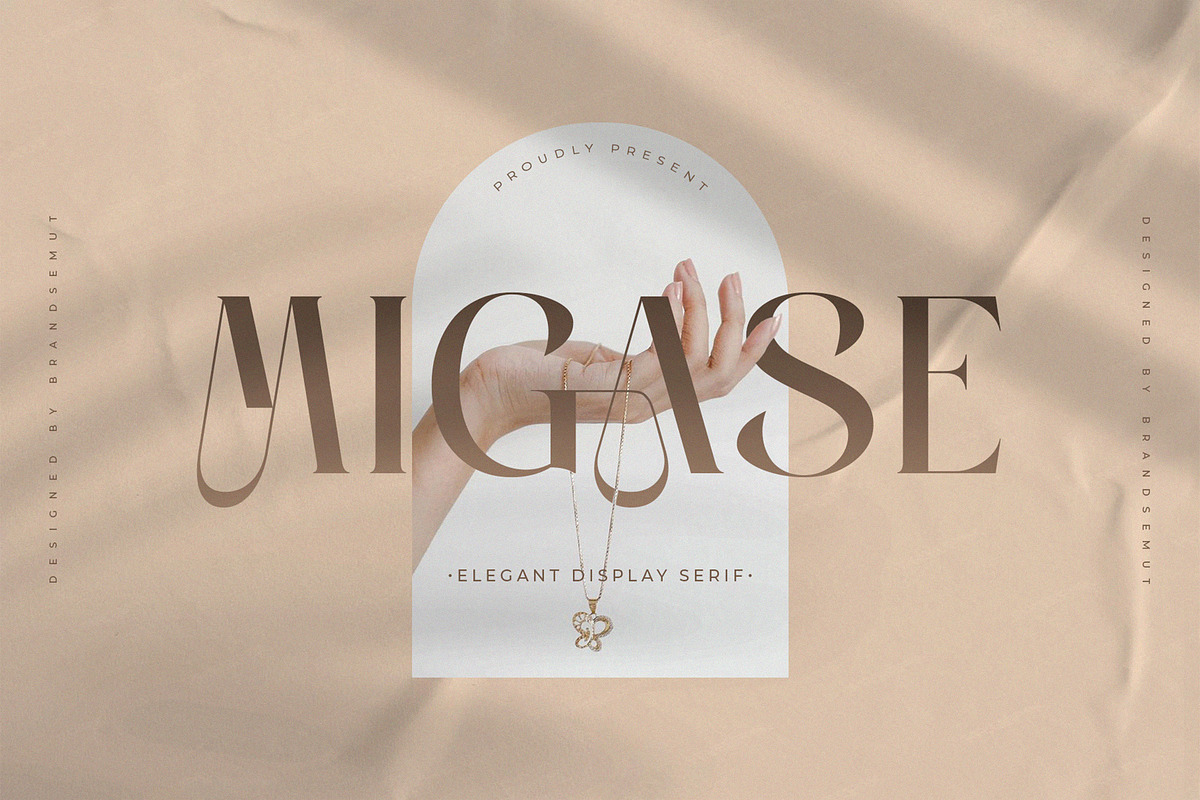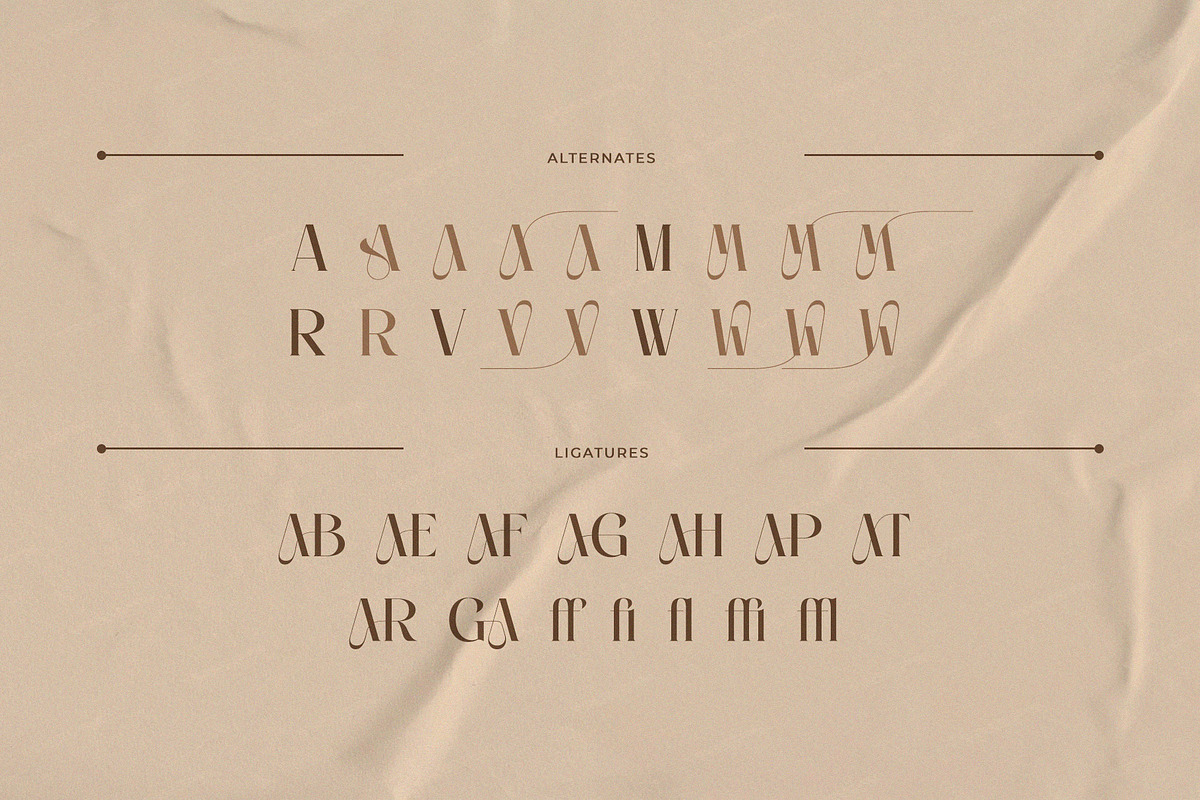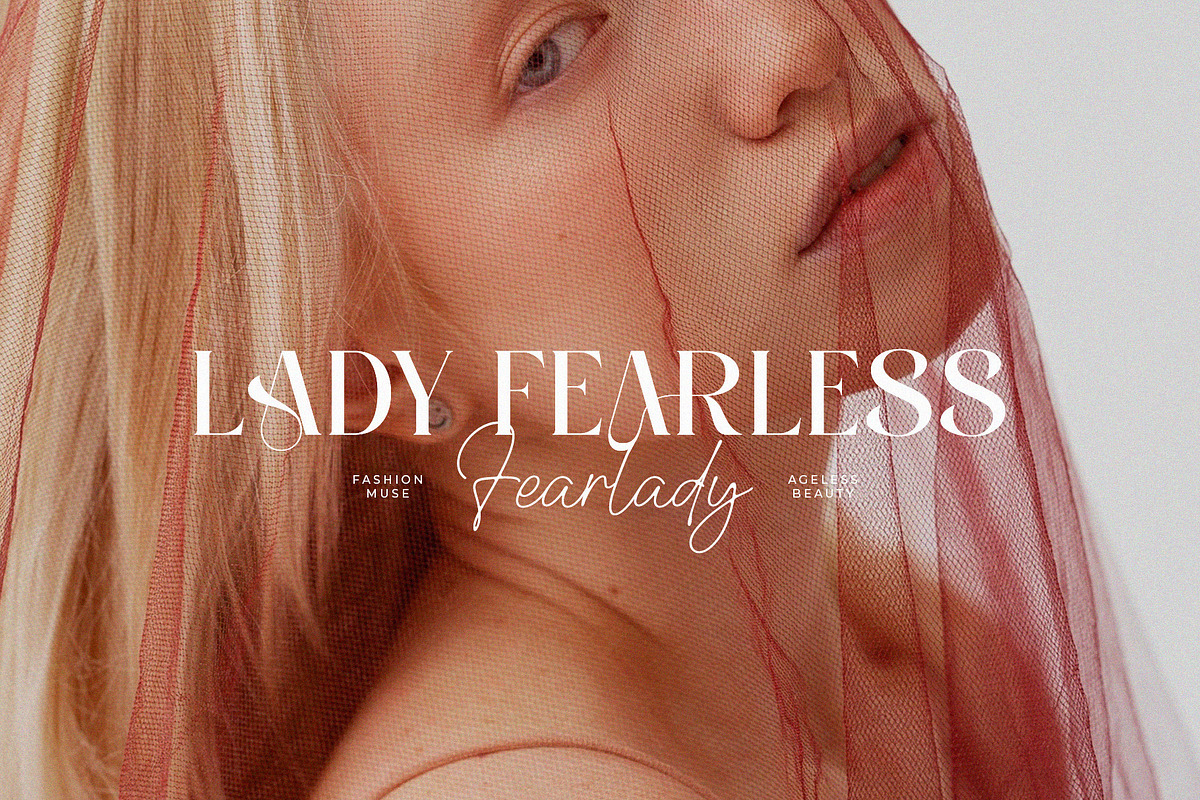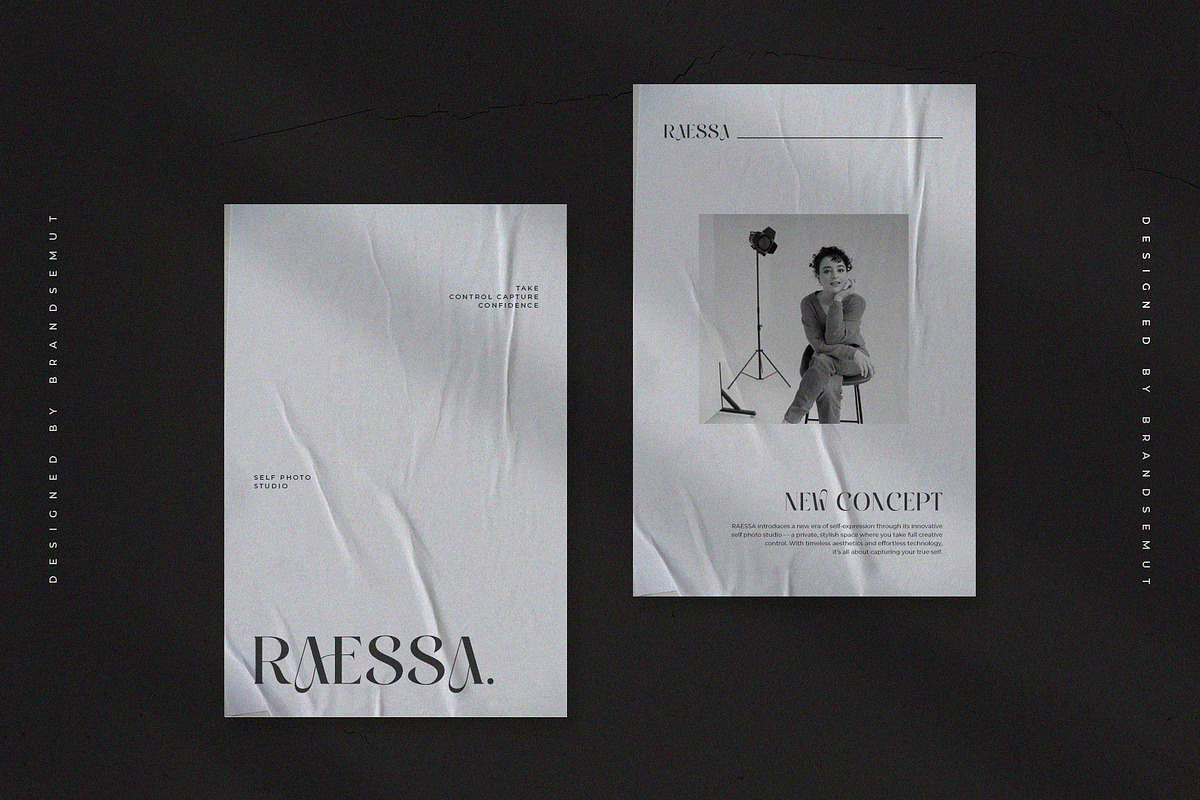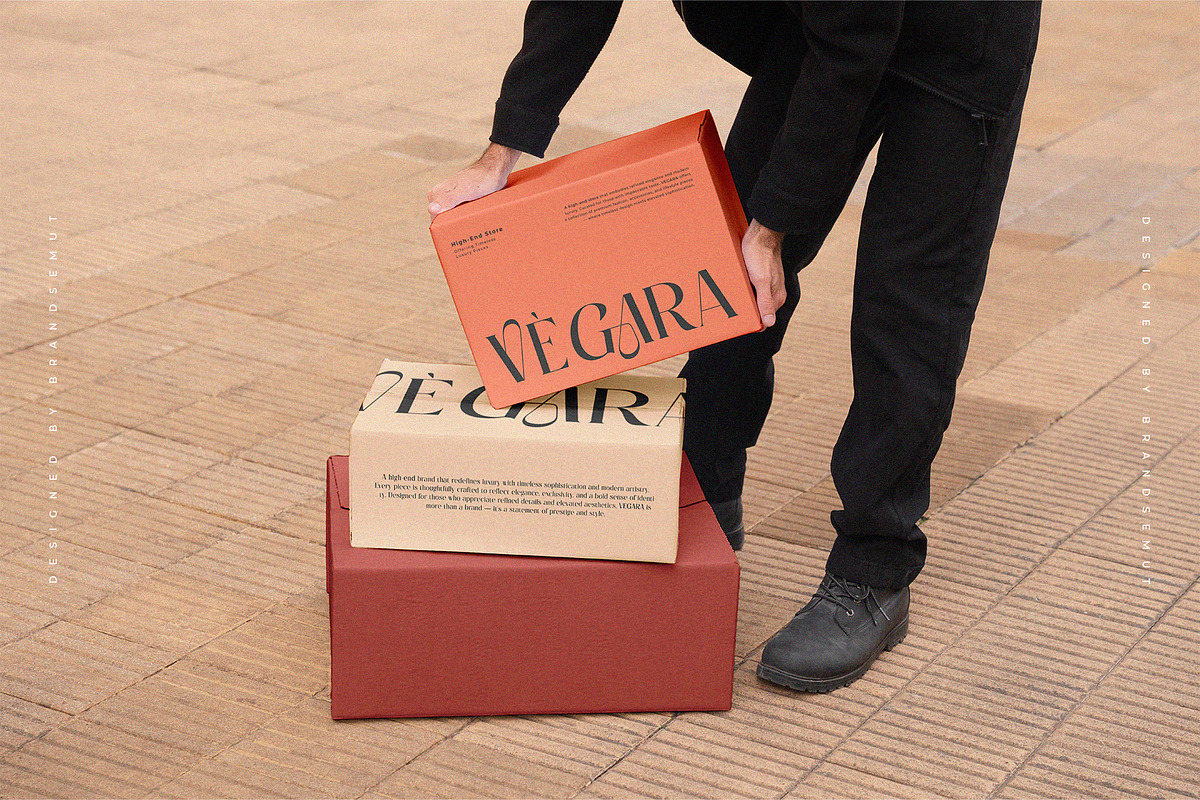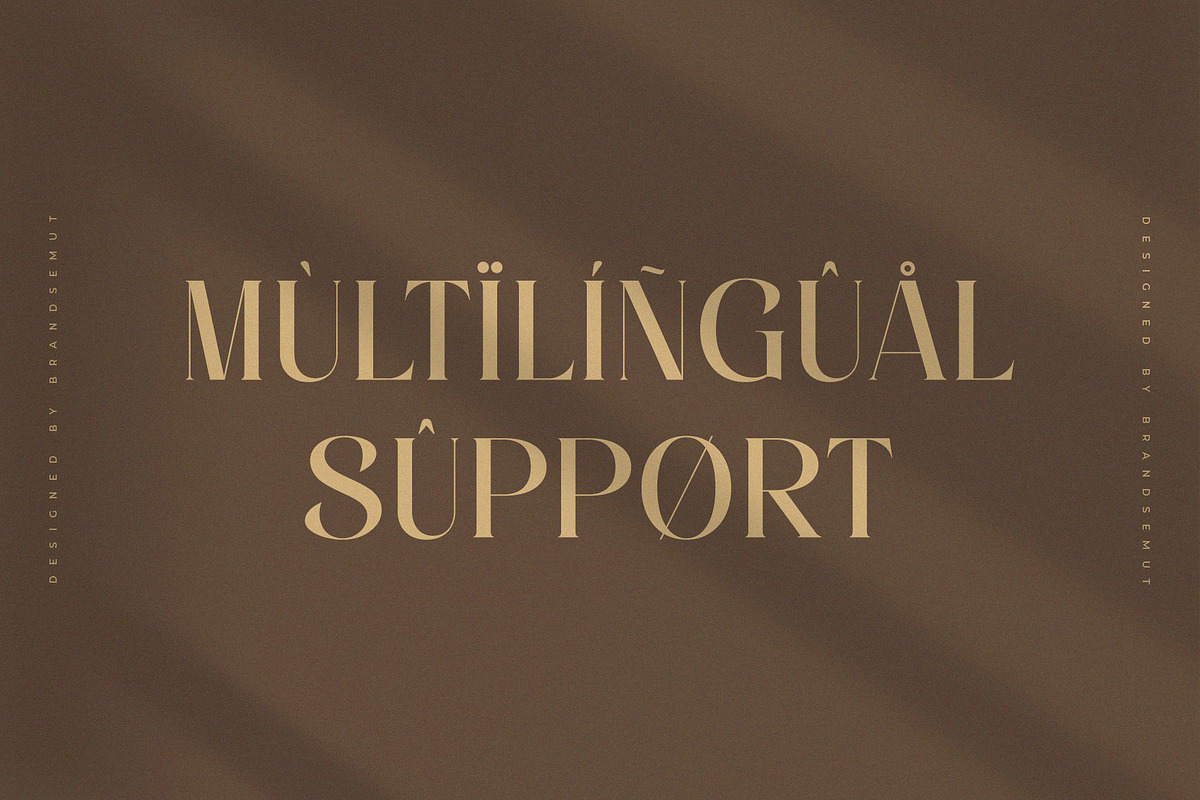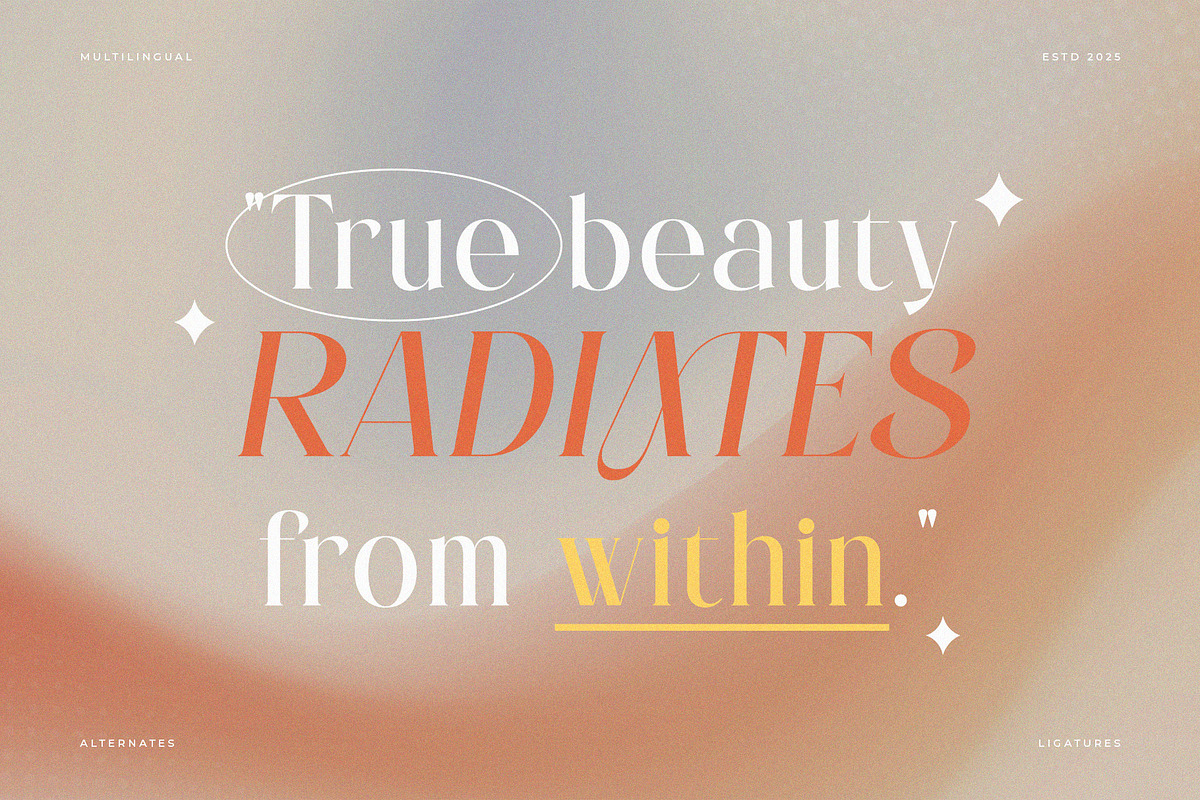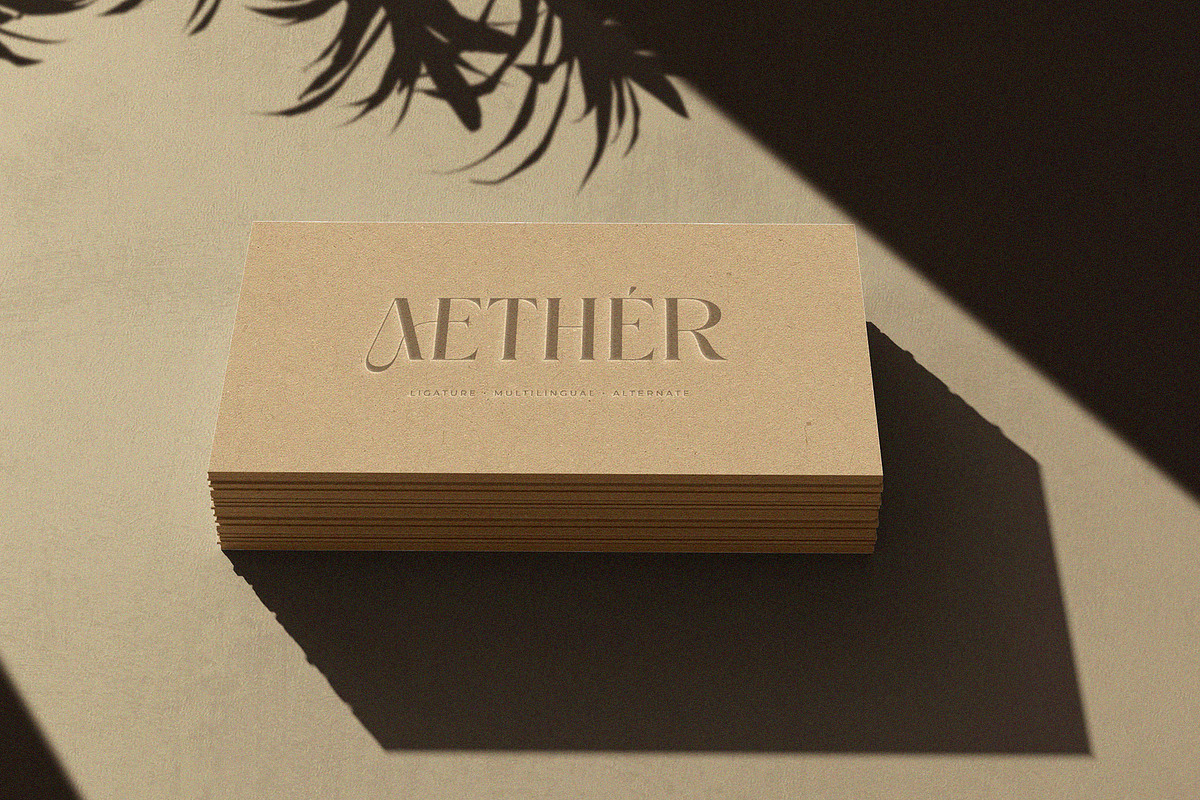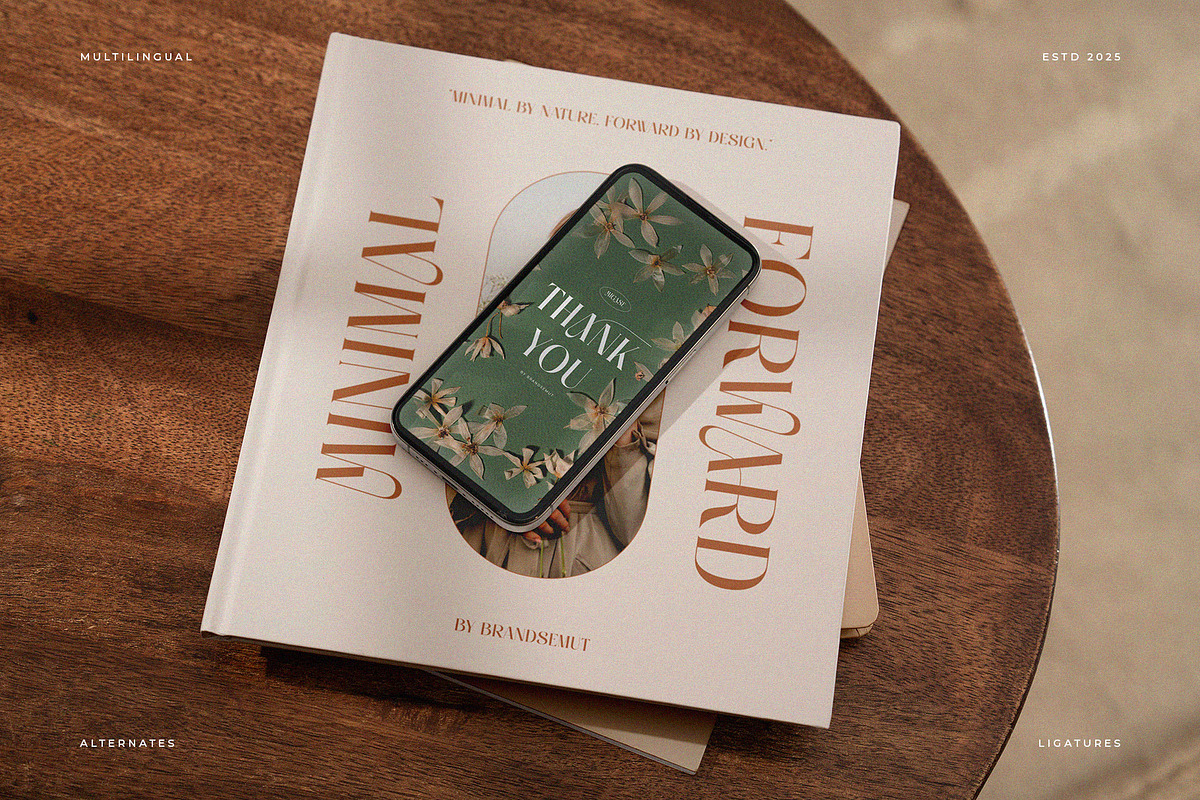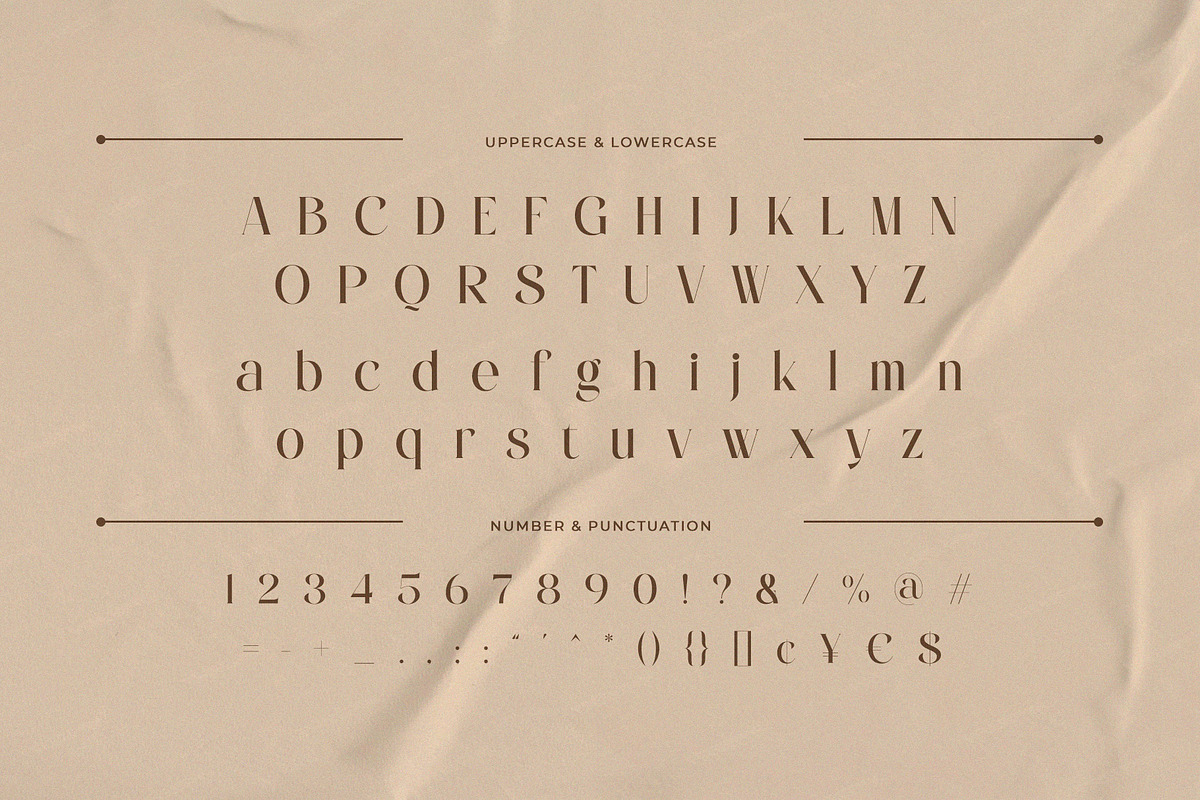
Migase Elegant Modern Display Serif
Migase – Elegant Modern Display Serif Font with Uppercase & Lowercase for Fashion Branding & Luxury Packaging
Migase is a refined and elegant modern display serif font designed to elevate your visual identity with charm and class. Featuring a full set of uppercase and lowercase letters, Migase combines graceful curves, strong serifs, and a contemporary high-contrast style — making it the perfect choice for branding, editorial design, jewelry logos, wedding invitations, and fashion packaging.
Each character is carefully crafted with attention to proportion and detail, allowing Migase to stand out with both minimal elegance and bold sophistication.
- Luxury logo & fashion branding
- Jewelry or beauty product packaging
- Editorial titles & magazine spreads
- Wedding invitations & classy stationery
- Feminine branding & Instagram graphics
- Elegant display serif construction
- Stylish alternates & smooth transitions
- Optimized for print & digital design
Let Migase add sophistication and personality to your design — a font made for timeless elegance with a modern soul.